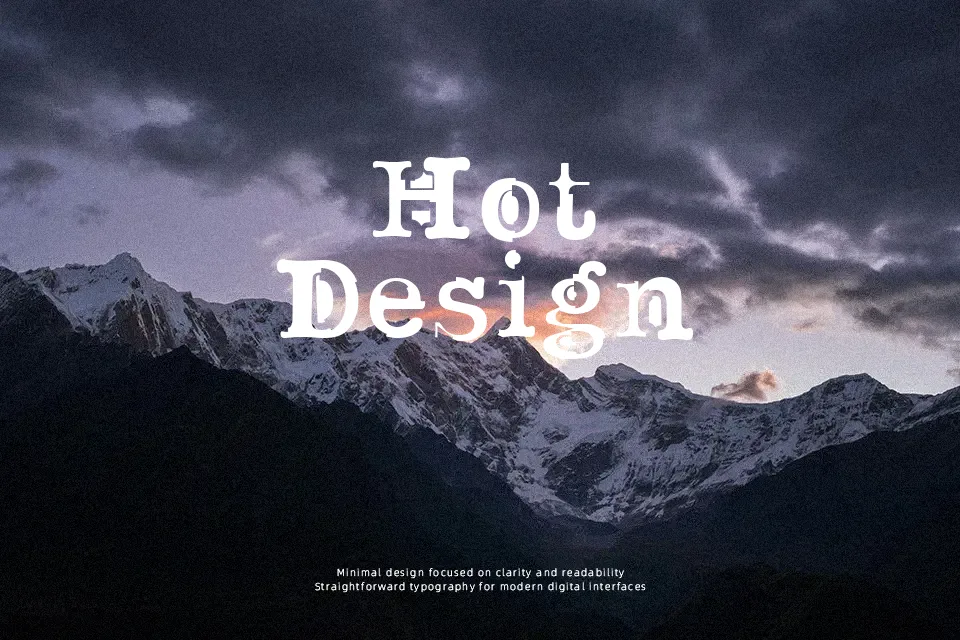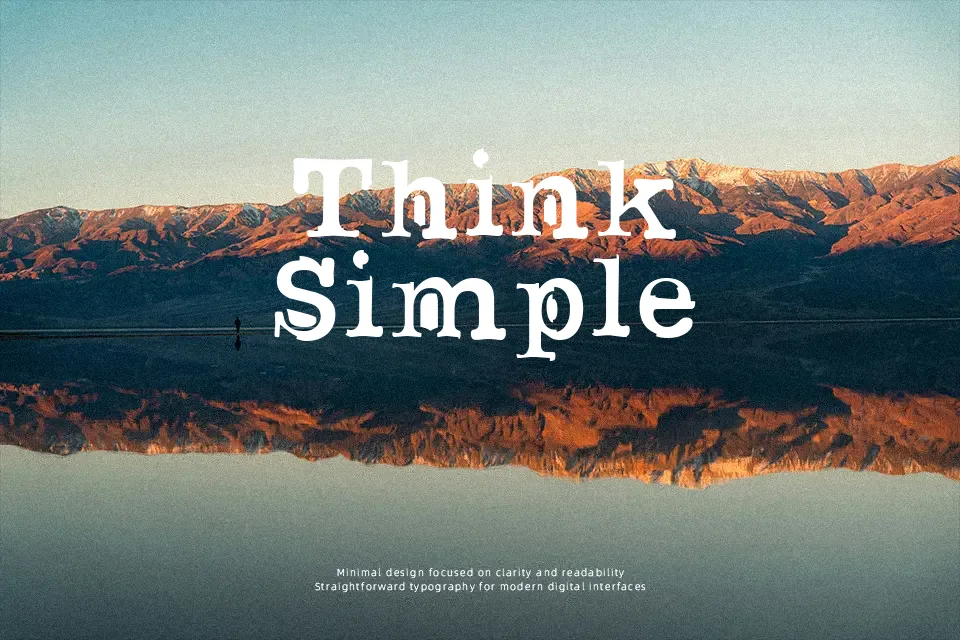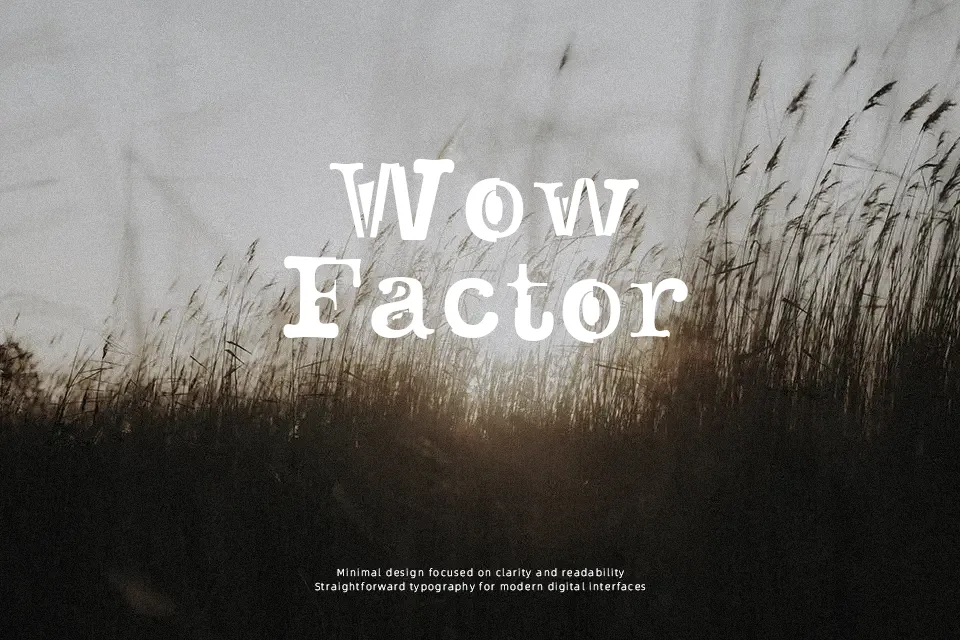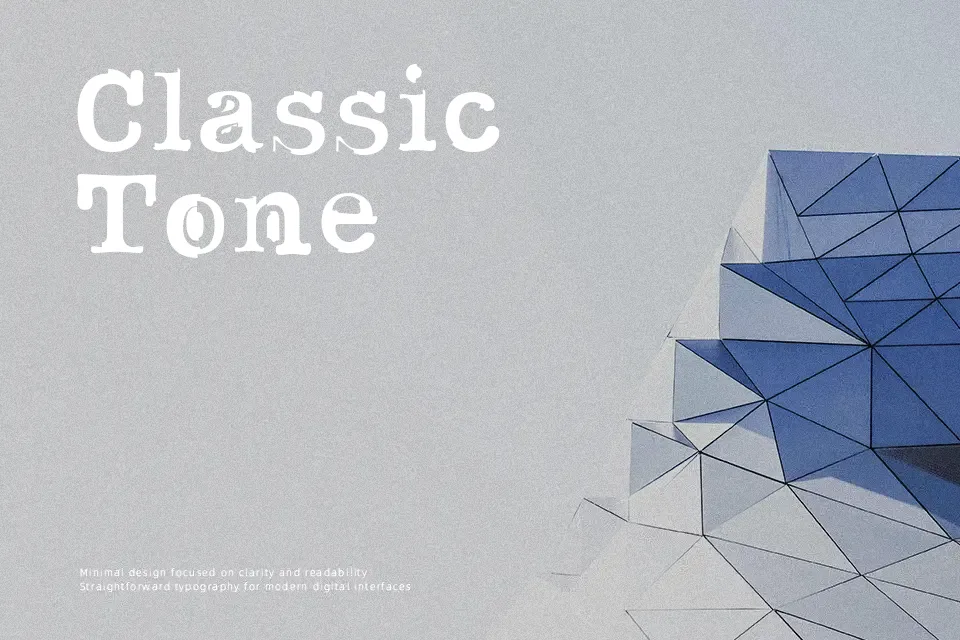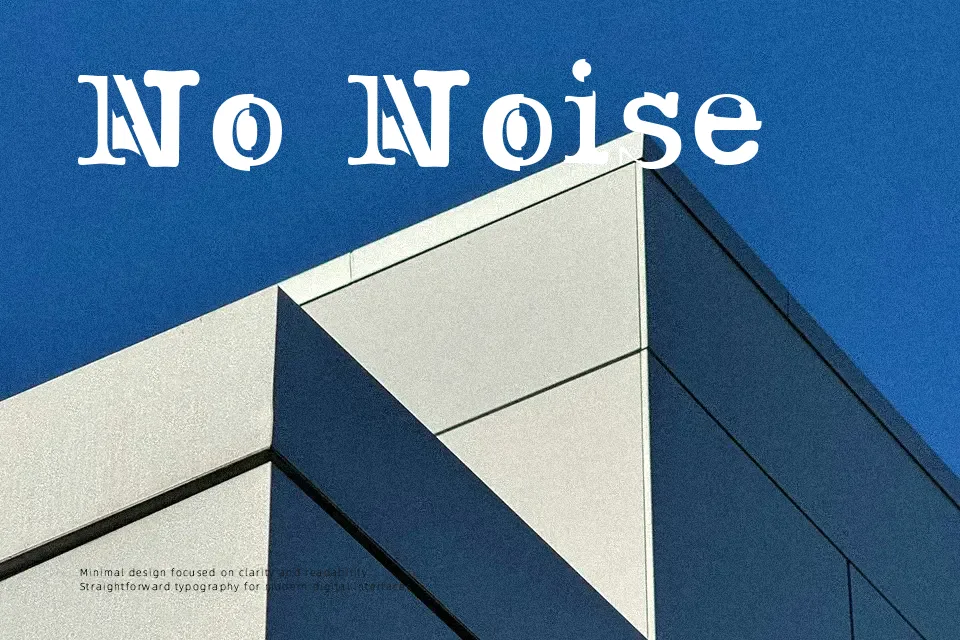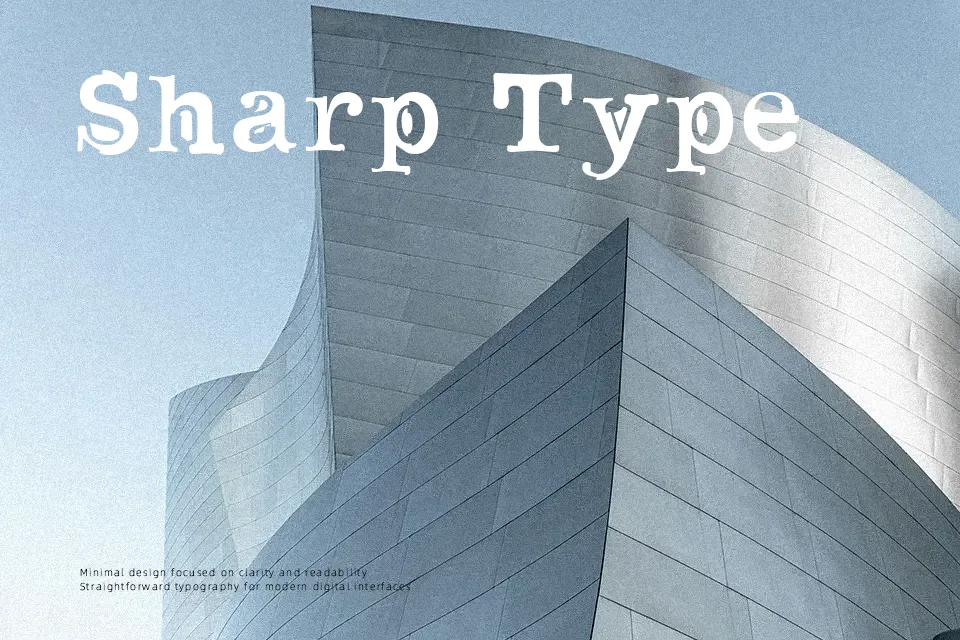
Noir Font
Noir Font reads as a rough, typewriter-inspired display design with heavy, uneven contours and compact proportions. Its filled letterforms create a dark, worn impression, while the mostly steady character rhythm keeps short words recognizable at larger sizes. Uppercase and lowercase glyphs share the same distressed visual treatment, and the numerals follow the condensed, print-like construction. The font works best when its texture is allowed room to show in headlines or short labels. In practical use, the dense forms hold attention in large text but become harder to scan in smaller copy and extended passages.
Best For: album cover titles,distressed product labels,film poster headlines,grunge apparel graphics
Perfect for film, headline, and music, with a creative and decorative style.